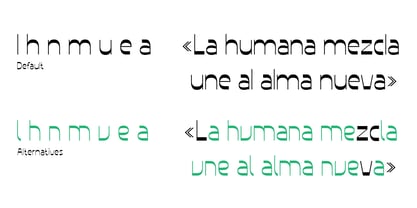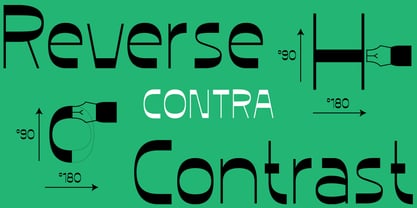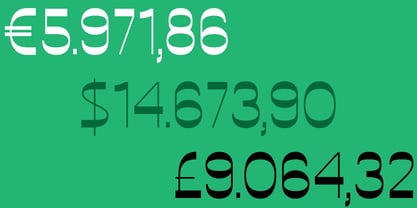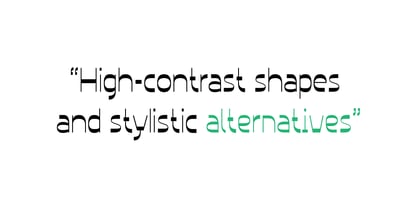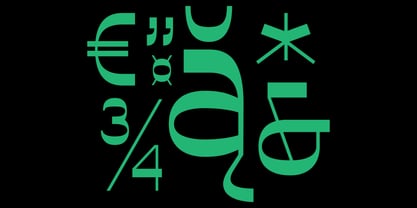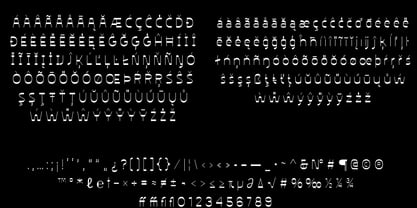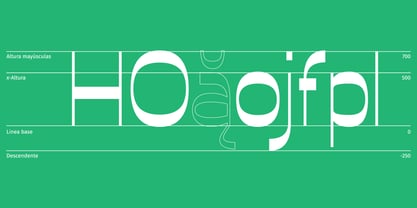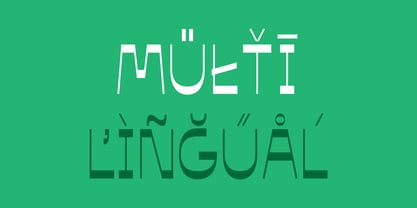
Contra
by Mazur Type
Contra is a display typeface designed to stand out. Its name refers to its strong counterforms, which are a central element of its visual personality. Origin and Style: It originates from the stroke of a broad-nib pen, with construction angles defined at 90° and 180°, giving it a geometric yet curved character. Current Release: In this release, Contra is available in two weights, Regular and Bold. It features an extensive character set designed to support a wide range of languages that use the Latin script. Future Prospects: The project will continue to expand with new weights and typographic features that will broaden its range of applications. Designed specifically for headlines, Contra is intended for titles, headings, and short compositions rather than body text. Minimum Size: Its structure and contrasts perform best at large sizes; a minimum of 30 pt is recommended to preserve the sharpness of its finest details. Ideal Application: It is best suited for titles of up to three lines, where its strong presence and pronounced counterforms can be fully appreciated.